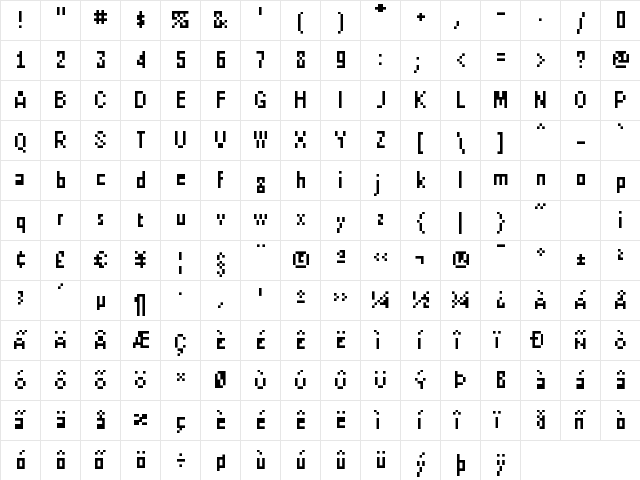
RasterGothicNineCond Regular
| Foundry | Mark Simonson |
| Designer | Mark Simonson |
Design Context for RasterGothicNineCond Typeface
RasterGothicNineCond takes a clean, functional approach — its unadorned letterforms prioritise legibility and work reliably across screen and print environments. The condensed width makes it efficient for tight spaces without sacrificing legibility.
Font Pairing: Works well alongside a characterful serif or display font that can carry the expressive load while RasterGothicNineCond handles the functional copy.
Pro Tip: Try RasterGothicNineCond in all-caps with moderate tracking for navigation and label copy — it performs well in systematic UI contexts.